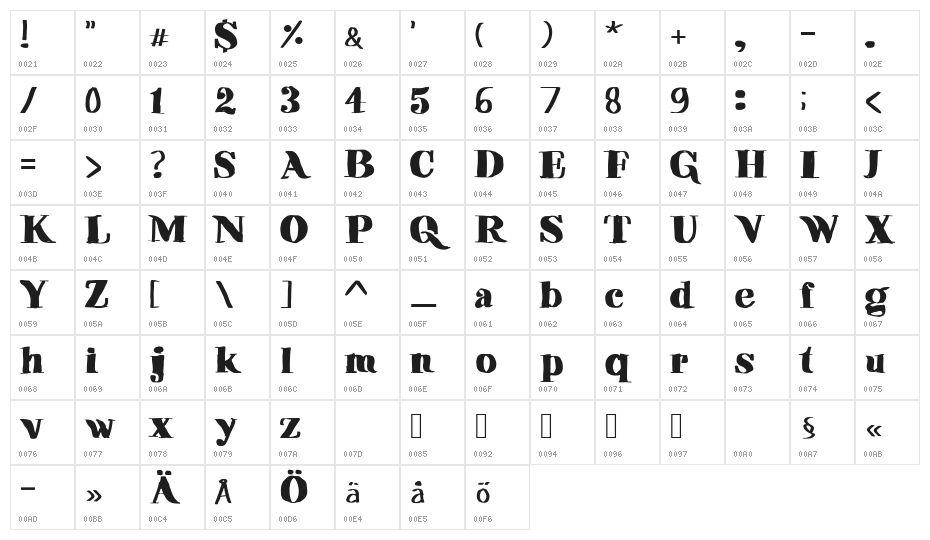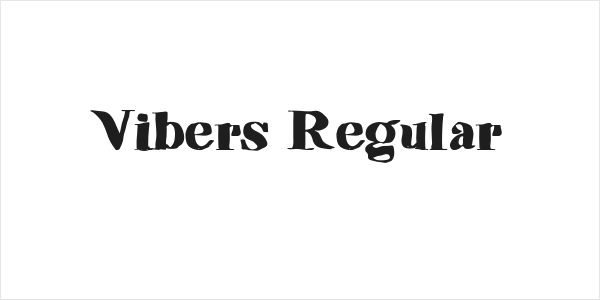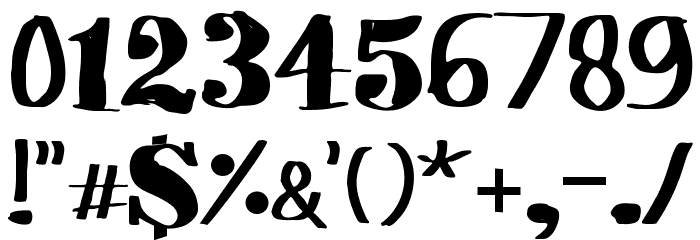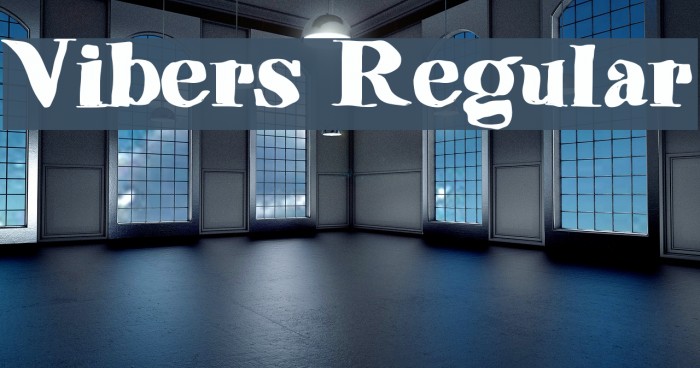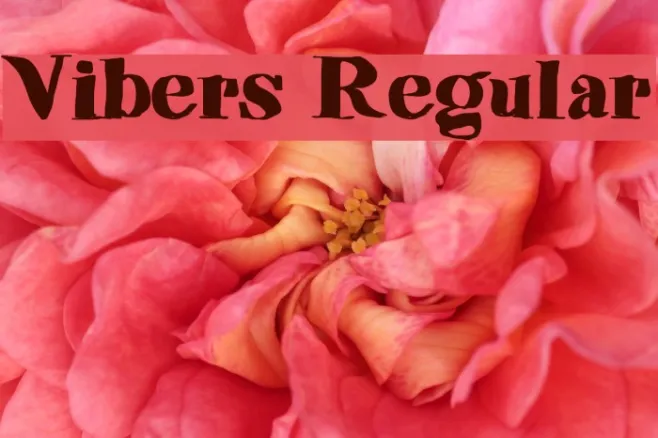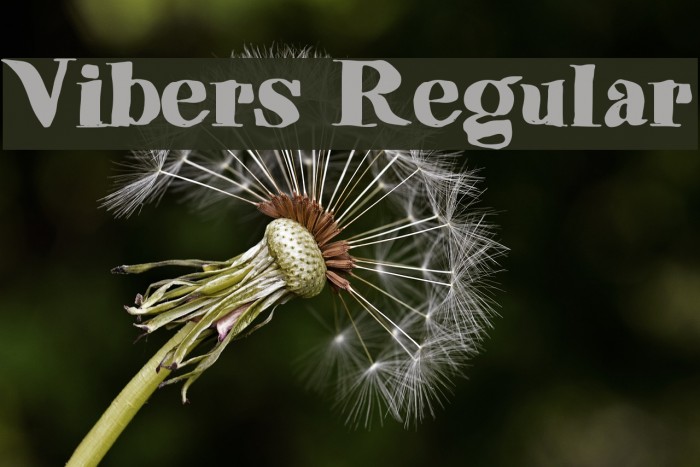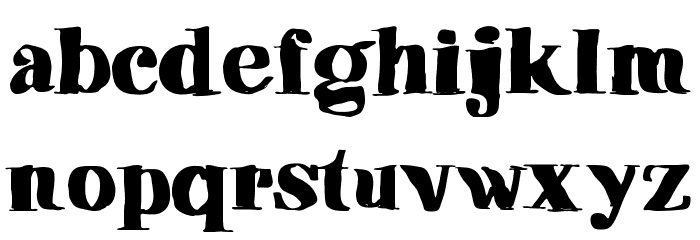
Vibers Regular Font
Vibers Regular Description
This font features a bold and dynamic style with a strong presence. The characters exhibit a distinct, slightly distressed texture, giving them a handcrafted and artistic feel. The uppercase letters are particularly striking, with exaggerated serifs and varying stroke widths that add to the font's dramatic appearance. The lowercase letters maintain the same boldness, ensuring consistency throughout the typeface. The numbers and special characters are equally bold, with unique shapes that complement the overall aesthetic. This font is ideal for projects that require a strong visual impact.